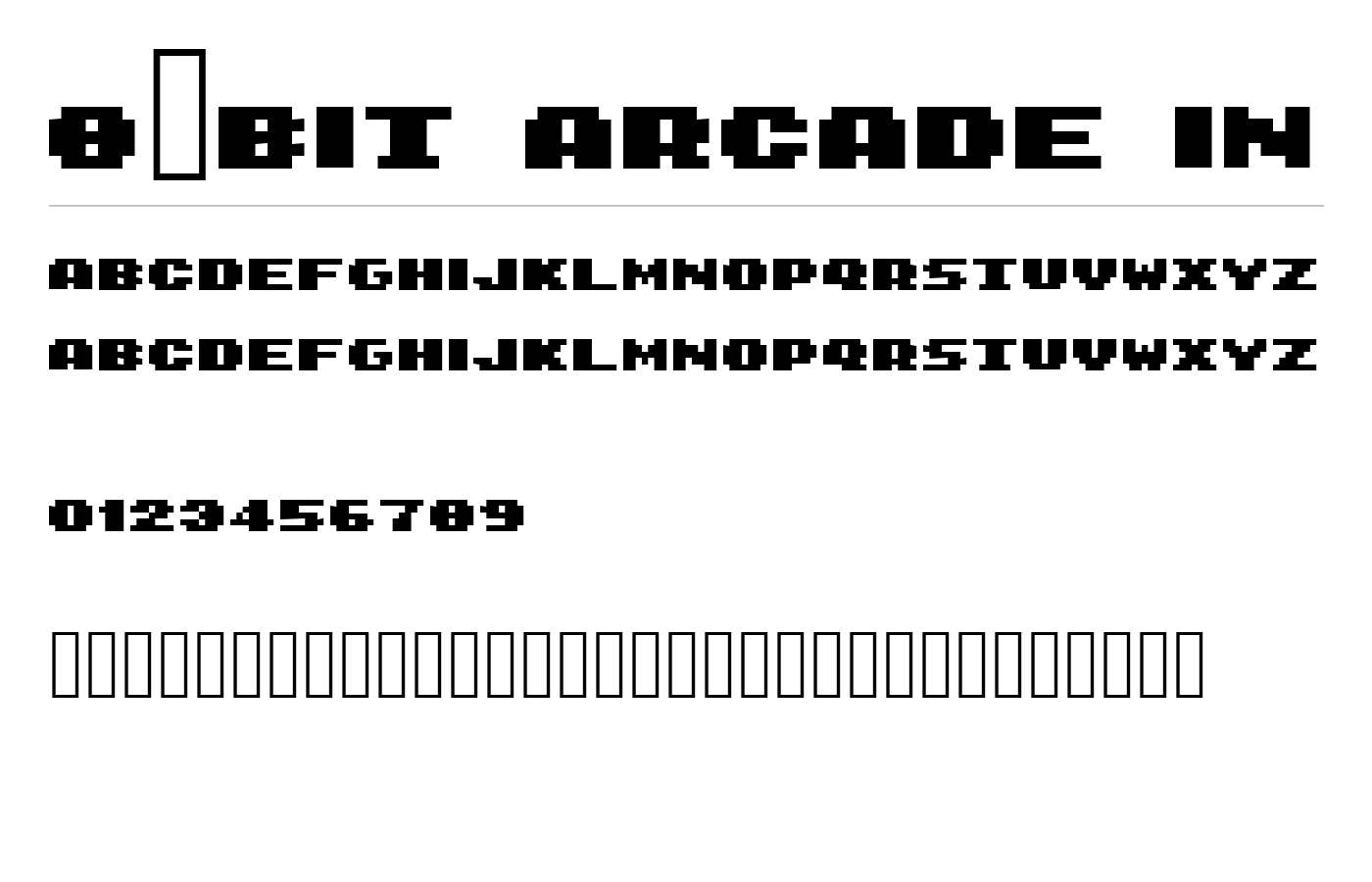
8-bit Arcade In is a bold, pixelated sans serif font that captures the nostalgic feel of classic video games with its blocky, geometric shapes. Its heavy weight and uniform stroke width give it a strong, impactful presence perfect for retro-themed designs, gaming projects, and digital art. This font works best in headlines, logos, and posters where a vintage arcade vibe is desired, adding a fun and playful yet unmistakably tech-inspired character.
8-bit Arcade In Font
About 8-bit Arcade In Font
| Font family | 8-bit Arcade In Font |
| Designer | Damien Gosset |